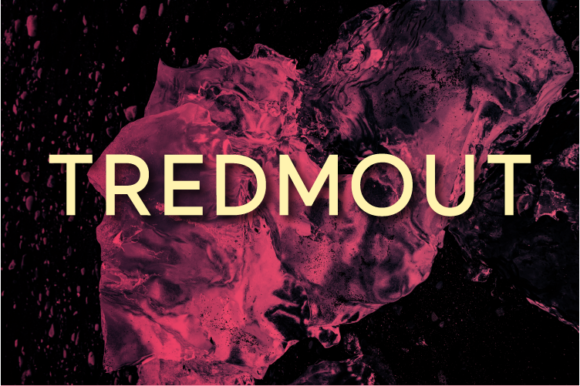
Introducing Tredmout Font: Your Gateway to a Modern, Professional CV
In today's competitive job market, crafting a CV that stands out is no longer a mere option but a necessity. With Tredmout Font, a captivating sans serif font, you can effortlessly elevate your CV's visual appeal and leave a lasting impression on potential employers. This summary delves into the allure of Tredmout Font and unravels the reasons why it's the perfect choice for job seekers seeking to create a CV that commands attention.
A Journey Through Modernity: Tredmout's Sans Serif Elegance
Tredmout Font embodies the essence of contemporary design with its clean lines, open counters, and geometric precision. Each letterform is meticulously crafted to exude a sense of sophistication and minimalism, ensuring that your CV radiates a professional aura from the very first glance. Its sans serif design lends a touch of modernity, enabling you to break free from traditional font choices and embrace a fresh, forward-thinking aesthetic.
Effortless Versatility: A Font for Every Occasion
The beauty of Tredmout Font lies in its remarkable versatility. Whether you're seeking a font for a formal CV, a creative portfolio, or a captivating presentation, Tredmout seamlessly adapts to your diverse needs. Its neutral palette and understated elegance make it a perfect fit for any industry or profession, allowing you to convey your skills and experiences with clarity and impact.
A Flawless Canvas for Your Professional Narrative
Tredmout Font serves as a blank canvas upon which you can paint the story of your professional journey. Its clean lines and generous proportions provide ample space for you to articulate your skills, experiences, and accomplishments. The font's inherent readability ensures that your CV remains easy on the eyes, allowing recruiters to effortlessly navigate through your qualifications.
Unleash Your Creative Genius: A Font That Inspires
Tredmout Font is more than just a font; it's an invitation to unleash your creative potential. Its minimalist design encourages you to experiment with colors, layouts, and design elements, empowering you to craft a CV that truly reflects your unique personality and professional aspirations. Break away from the mundane and embrace the opportunity to create a CV that's as distinctive as you are.